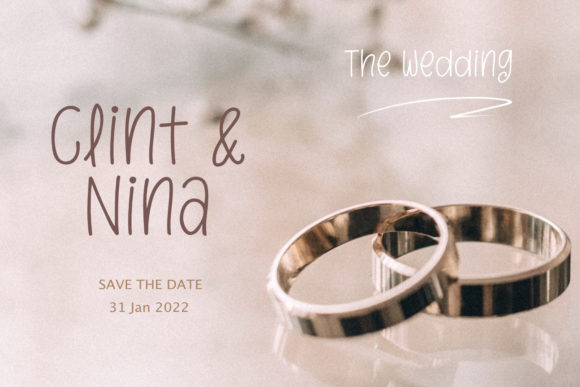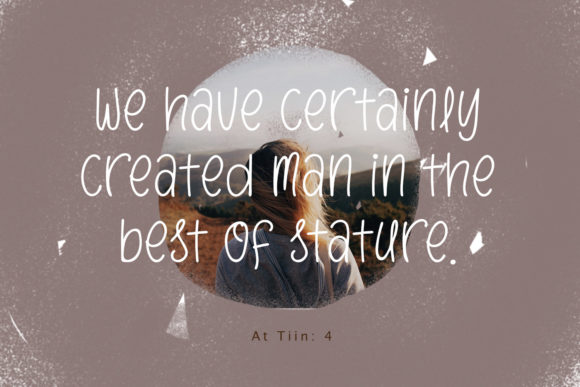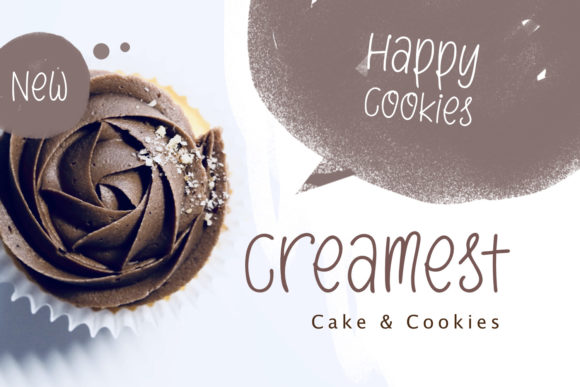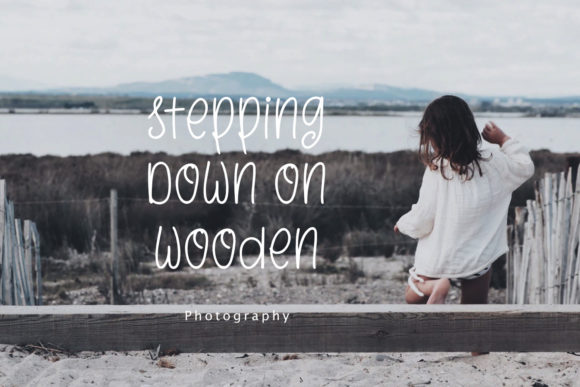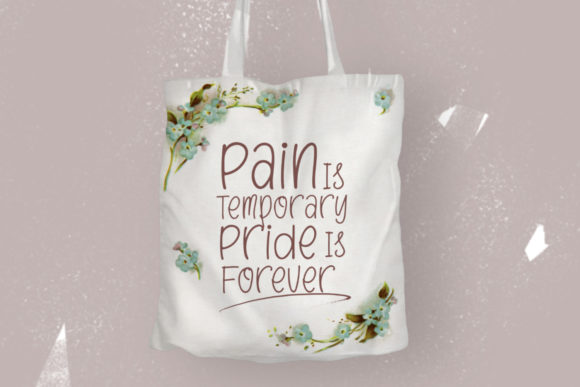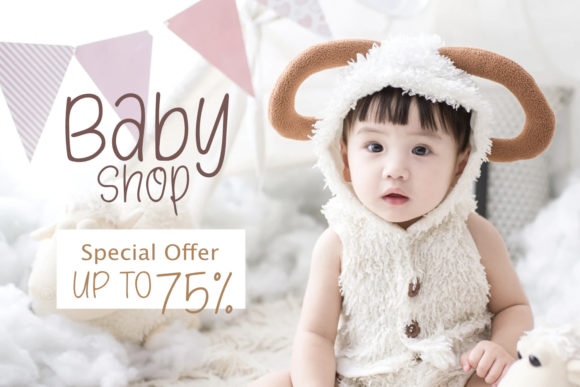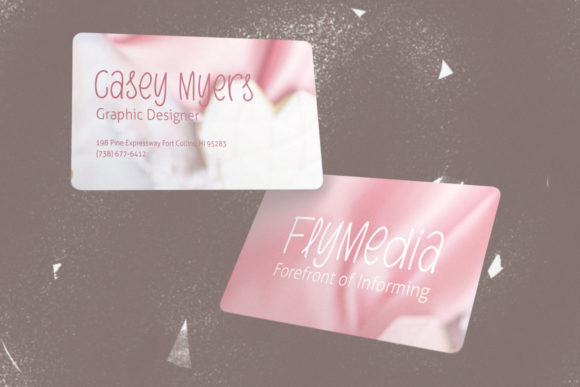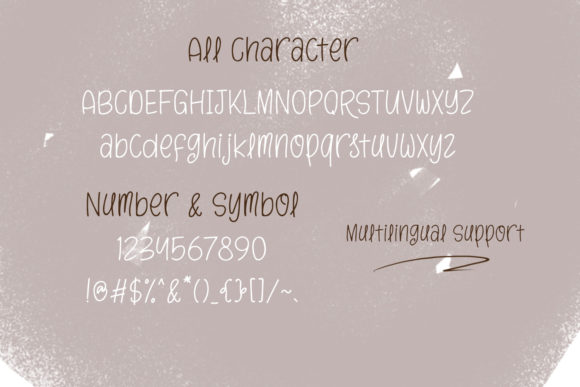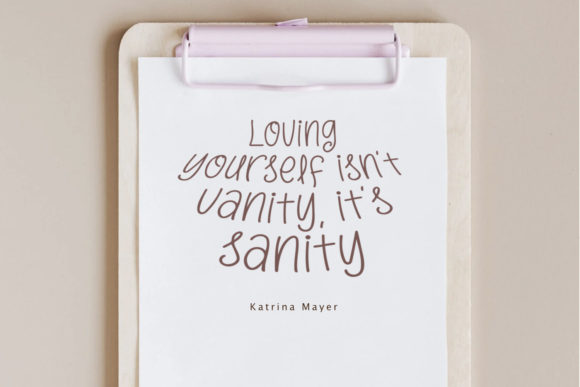
Buddy Smile Font
About Buddy Smile Font
Buddy Smile is a cute, relaxed and friendly handwritten font. No matter the topic, this font will be an incredibly asset to your fonts’ library, as it has the potential to elevate any creation.